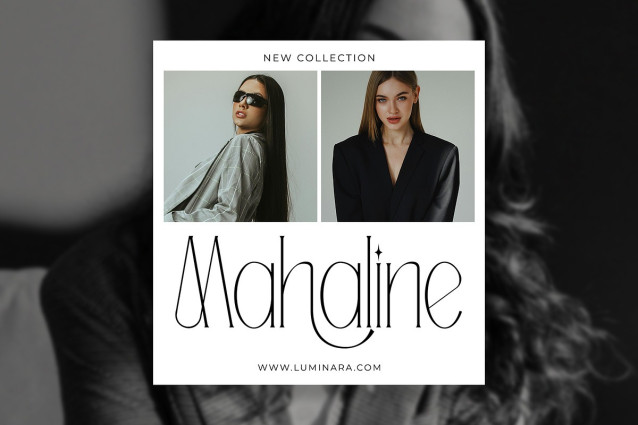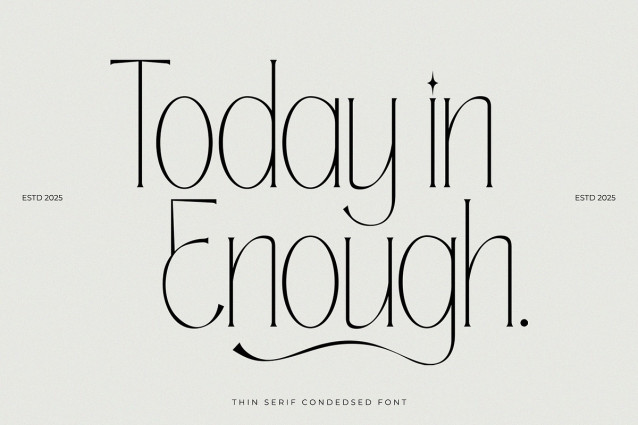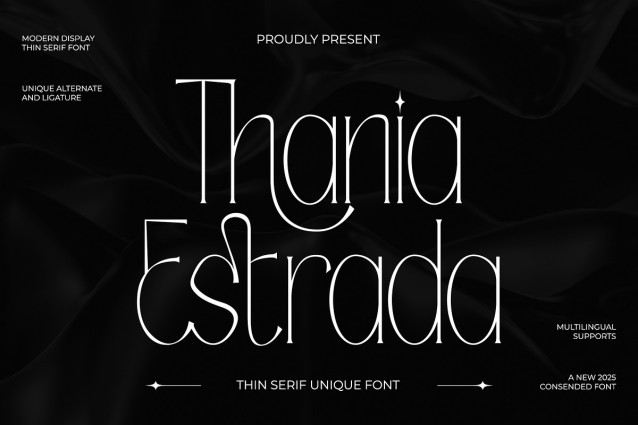
Thania Estrada Font
Thania Estrada Font – Thin Unique Serif, a beautiful unique thin serif font, perfect for adding a touch of subtle elegance to your designs. Its delicate strokes and unique strokes create a sophisticated look, ideal for logos, branding, invitations, etc.